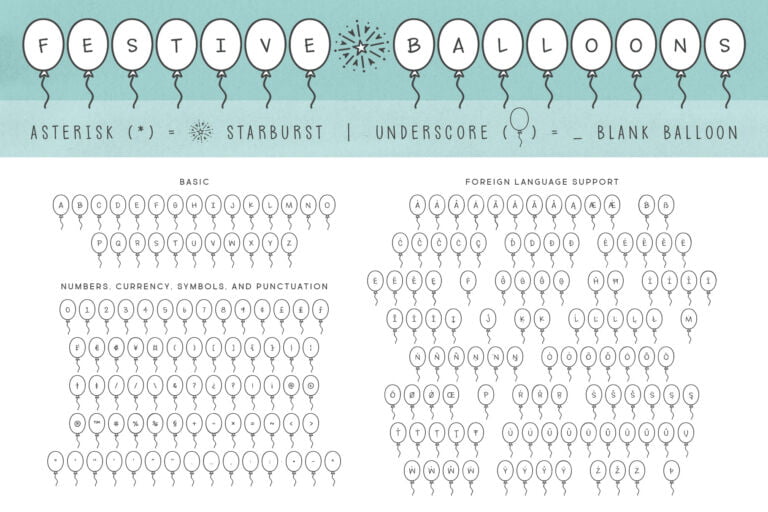
Festive Balloons Font
About the Festive Balloons Font
The Festive Balloons font is a fun picture font created in 2022 by Brittney Murphy Design.
The Festive Balloons font supports most Latin-based languages and the full version includes numbers and punctuation that you will need.
Use the asterisk (*) for a fun starburst character.
Use the underscore (_) for a blank balloon.
Festive Balloons gives you a quick and easy way to add some festive flair to party flyers, birthday invitations or any other celebratory project.